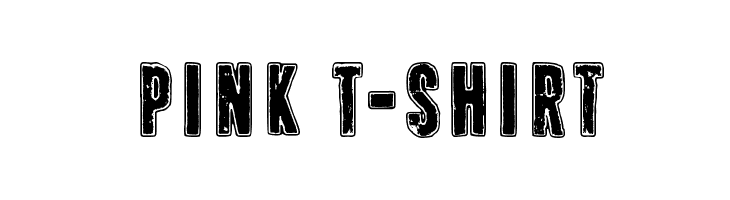
( Fonts by da_only_aan )
A bold, fragmented font with a strong, impactful design.
( Fonts by junkohanhero )
A bold, distressed font with a grunge texture, ideal for impactful designs.
( Fonts by junkohanhero )
A bold, distressed font with a vintage, grunge aesthetic.
( Fonts by Jacob Fisher - www.pizzadude.dk )
A rugged, textured font with a hand-crafted, adventurous feel.
A bold, distressed font with a pirate-themed, adventurous style.
A bold, italicized font with a halftone texture, offering a dynamic and retro-modern look.
A rugged, distressed font with a pirate-themed aesthetic.